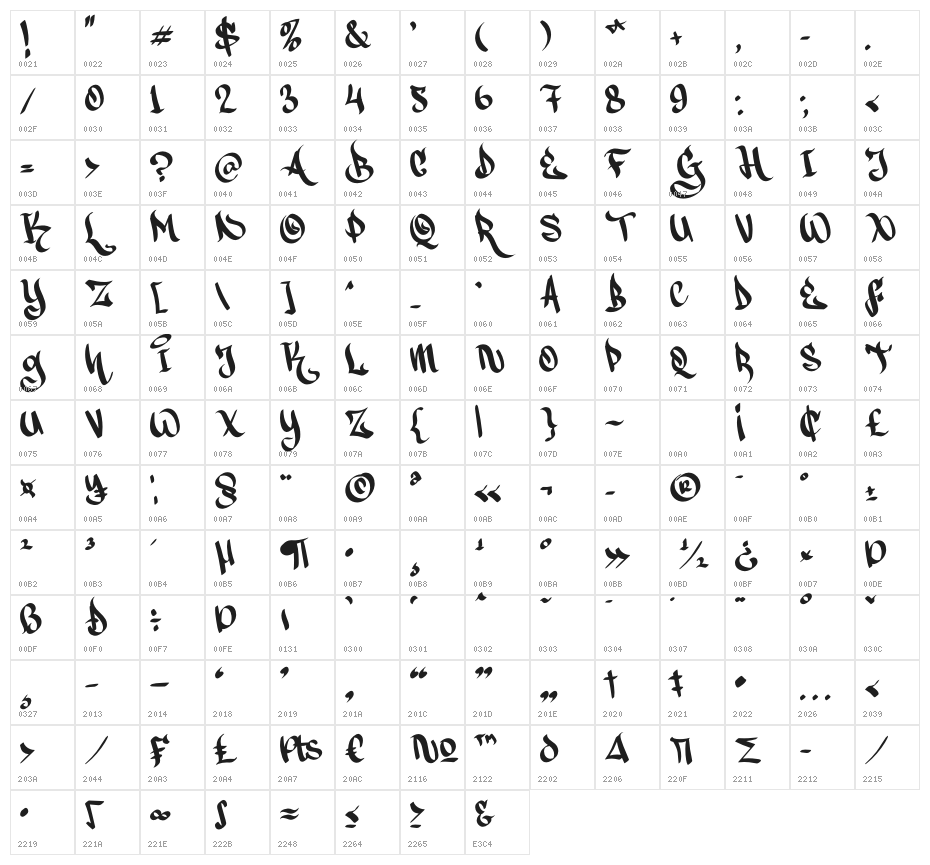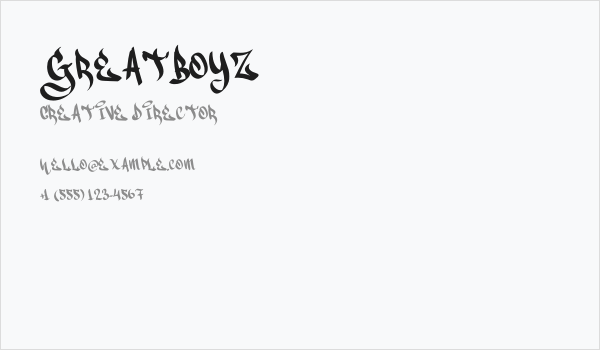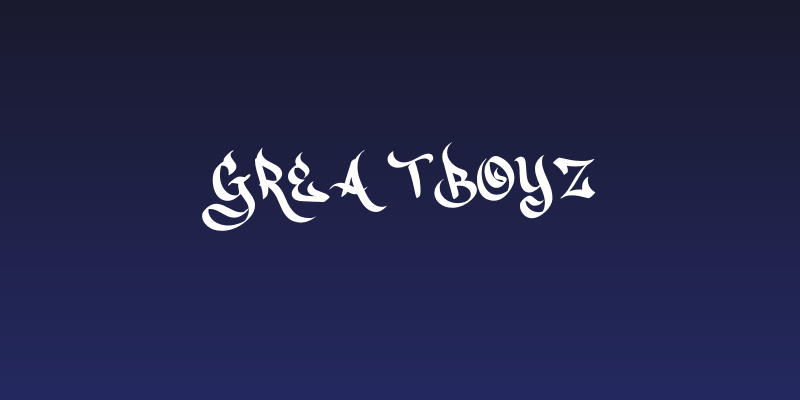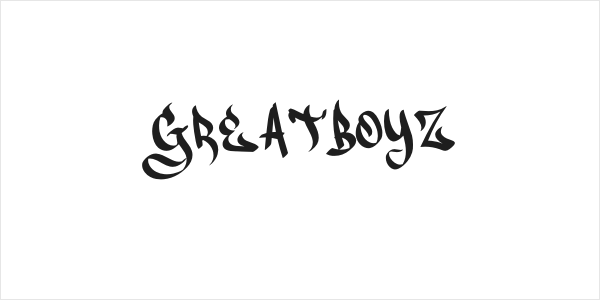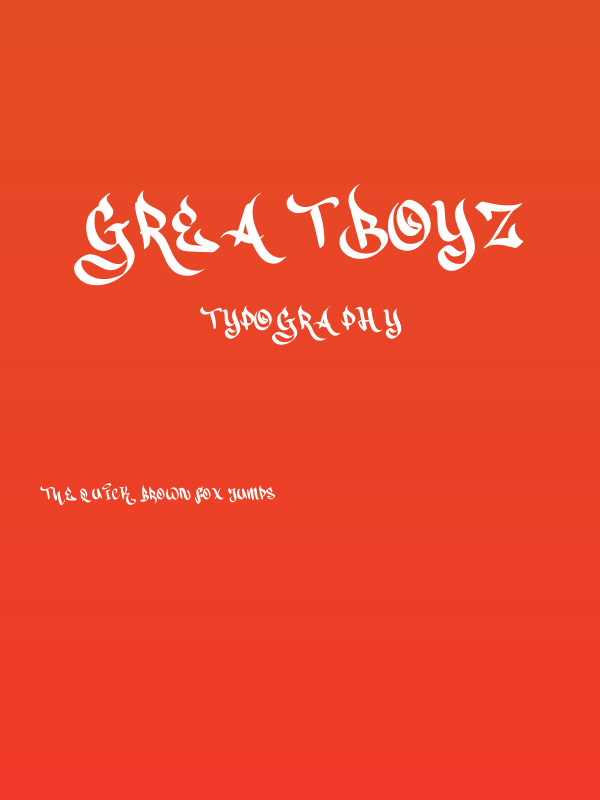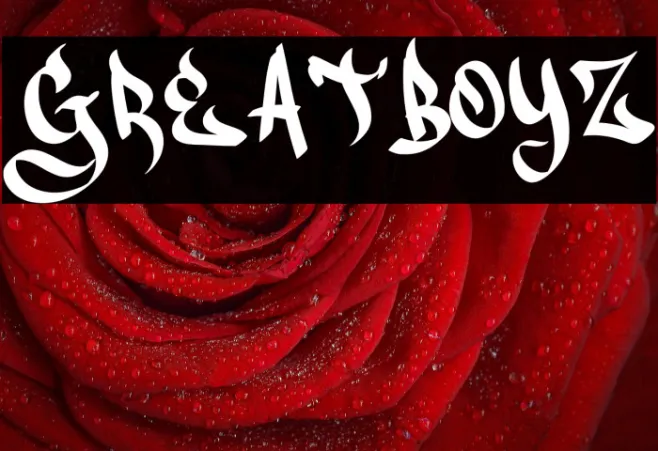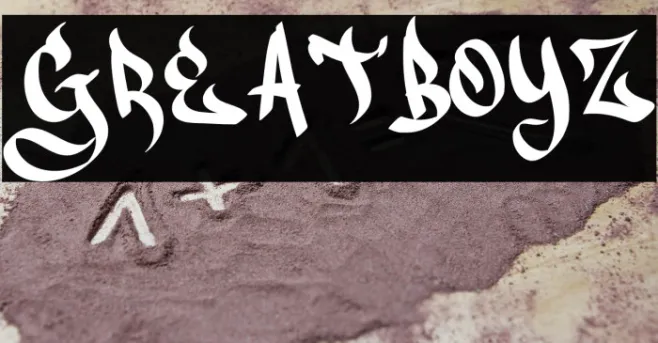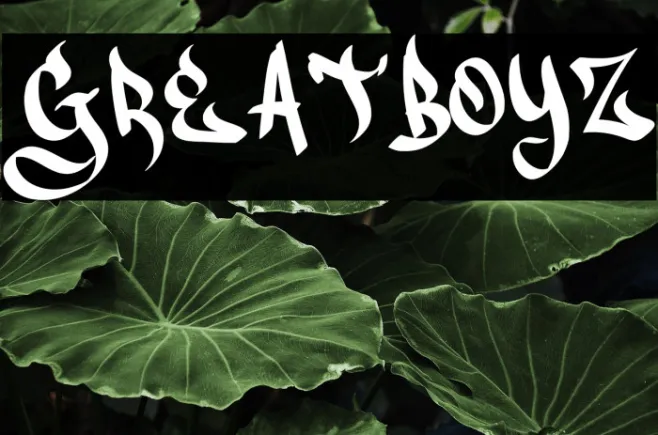
Greatboyz Font
Greatboyz Description
This font features a bold and dynamic style with a strong calligraphic influence. The characters exhibit a flowing, cursive design with pronounced curves and flourishes, giving it a sense of movement and energy. The uppercase and lowercase letters maintain a consistent style, while the numerals and special characters integrate seamlessly with the overall aesthetic. The strokes are thick and bold, providing a strong visual impact, making it suitable for attention-grabbing designs.
| Proposed Projects | Ideal for tattoo designs, music album covers, posters, and branding that requires a bold, artistic flair. |